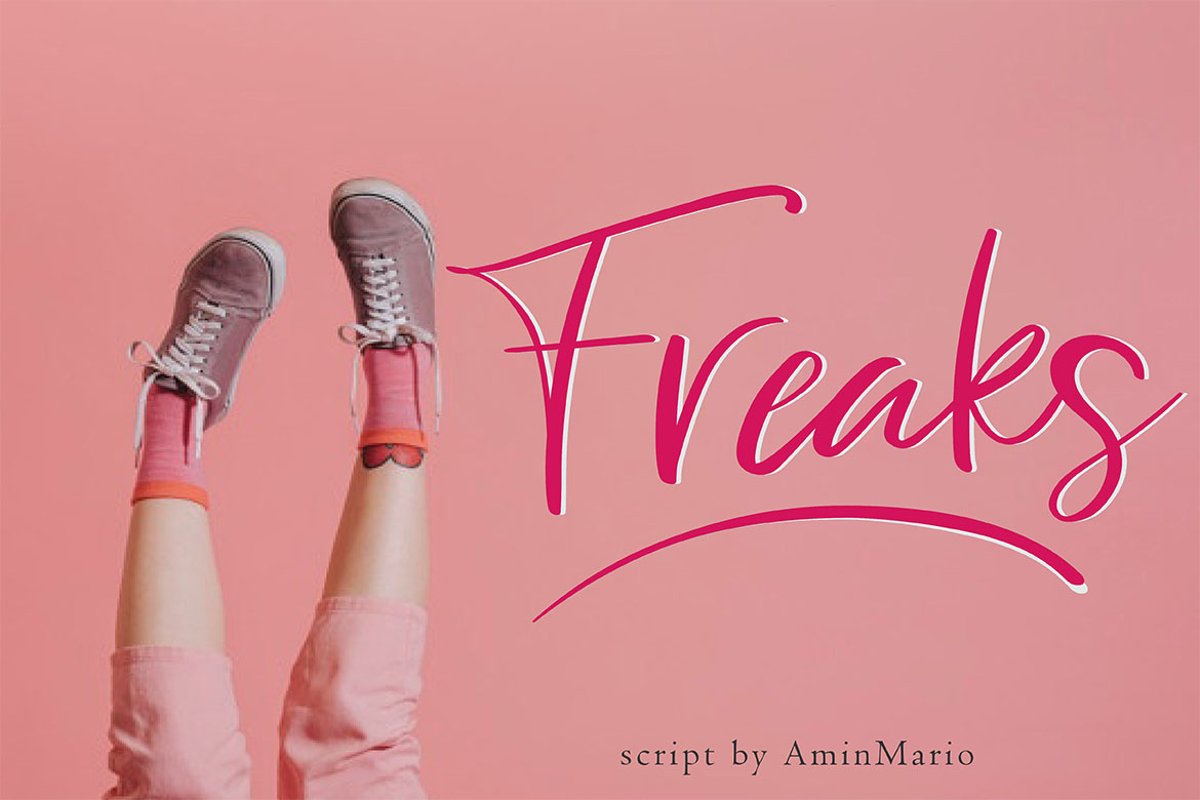
Freaks - Script Font
Freaks
Effortlessly take your branding or design to the next level with FREAKS Font.
FREAKS is a half messy script, full of personality and curves. This font was designed using quick strokes to create natural handwritten, to give the font a natural look in a digital world. Perfect for any awesome project that need hand writing taste.
This is suitable for logos, watermarks on photography, signatures, branding, advertisement, quotes, invitations, stationery, wedding design,album covers, business cards, clothing, magazines, posters, and more!
As usual ,the font comes with many opentype features such as Alternates,Ligature and underlines. Mix and match a regular and alternates to get a new ligature. Also support multilingual. You can access all those alternate characters by using Opentype or Glyph program such as Adobe Illustrator cs,Adobe Photosop cc, Adobe InDesign, etc.